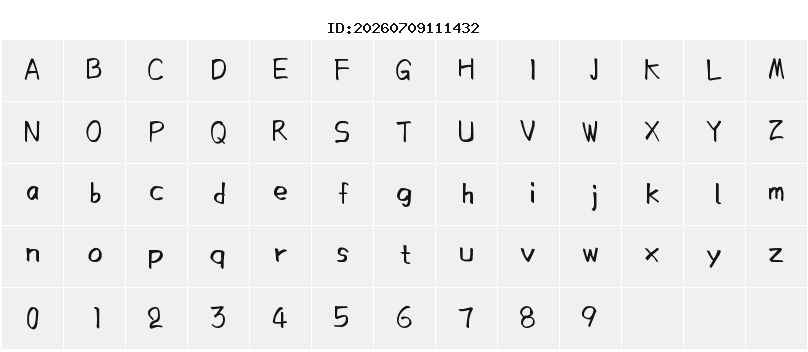
阿朱泡泡体 Preview
• Font Name: 阿朱泡泡体
• Full Font Name: 阿朱泡泡体
About 阿朱泡泡体.ttf
阿朱泡泡体.ttf is a modern, elegant sans-serif font designed for ultimate readability and visual harmony. Perfect for branding, headlines, web design, and print materials.